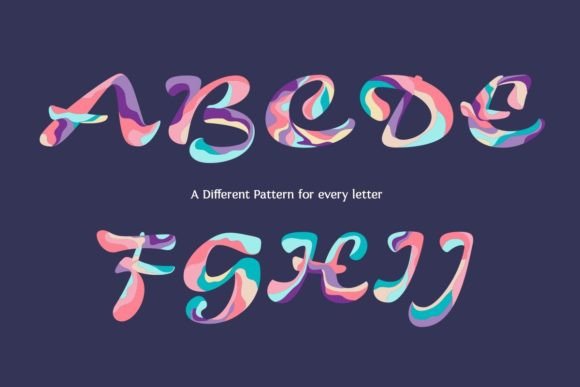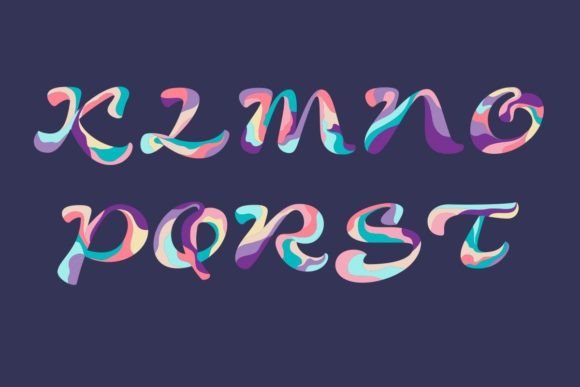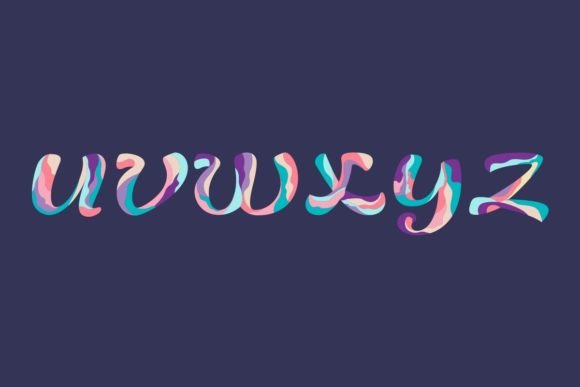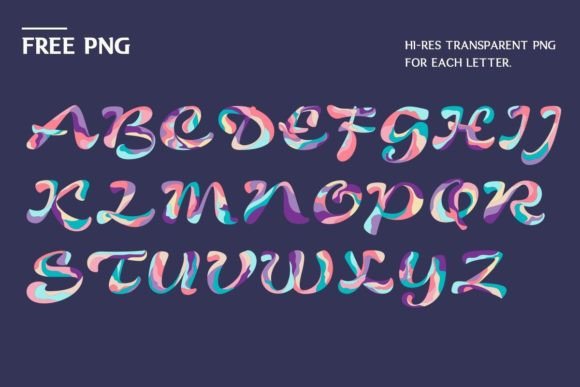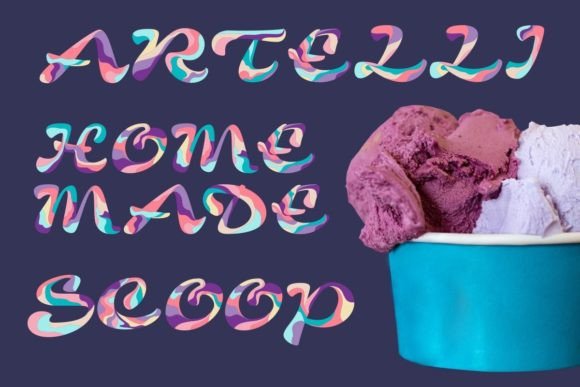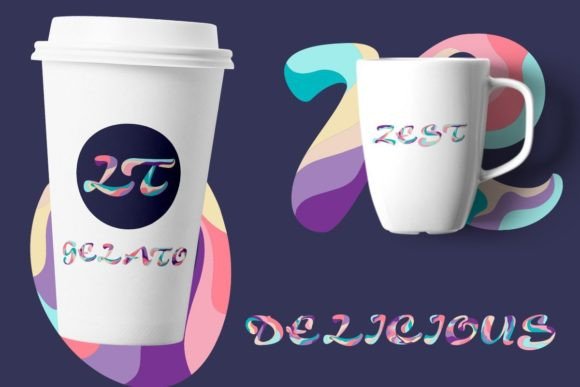
Introducing Conferia Gelato Font: A Fun, Fresh, and Playful Color Font
Are you looking for a font that can add a touch of fun and playfulness to your designs? Look no further than Conferia Gelato Font! This vibrant and colorful font is perfect for creating amazing poster designs, merchandise, packaging, or even logos. With its bouncy brush look and vintage impression, Conferia Gelato Font is sure to make your creative works stand out.
What Makes Conferia Gelato Font Special?
Conferia Gelato Font is a color font, specifically an Opentype-SVG font, which means it can be used in a variety of design software, including PhotoShop, Illustrator, Silhouette, and Inkscape. This font features a colorful gelato pattern that makes it easy to create incredible creative works. The bouncy brush look from the font’s shape gives a nice vintage impression, adding a touch of nostalgia to your designs.
Key Features of Conferia Gelato Font
- Fun and playful design: Conferia Gelato Font is perfect for designs that require a touch of fun and playfulness.
- Colorful gelato pattern: The font features a colorful gelato pattern that makes it easy to create amazing designs.
- Bouncy brush look: The font’s shape gives a nice vintage impression, adding a touch of nostalgia to your designs.
Design Ideas with Conferia Gelato Font
Conferia Gelato Font is perfect for a variety of design projects, including:
- Poster designs: Create eye-catching posters with Conferia Gelato Font’s colorful gelato pattern.
- Merchandise: Add a touch of fun and playfulness to your merchandise designs with Conferia Gelato Font.
- Packaging: Use Conferia Gelato Font to create colorful and eye-catching packaging designs.
- Logos: Create a fun and playful logo with Conferia Gelato Font.
Here are a few tips and tricks to get the most out of Conferia Gelato Font:
- Experiment with different colors: Conferia Gelato Font is a color font, so don’t be afraid to experiment with different colors and combinations.
- Use it with other fonts: Conferia Gelato Font pairs well with other fonts, so try using it with a bold font for a fun and playful look.
- Play with the gelato pattern: The gelato pattern in Conferia Gelato Font is customizable, so play around with it to create unique designs.